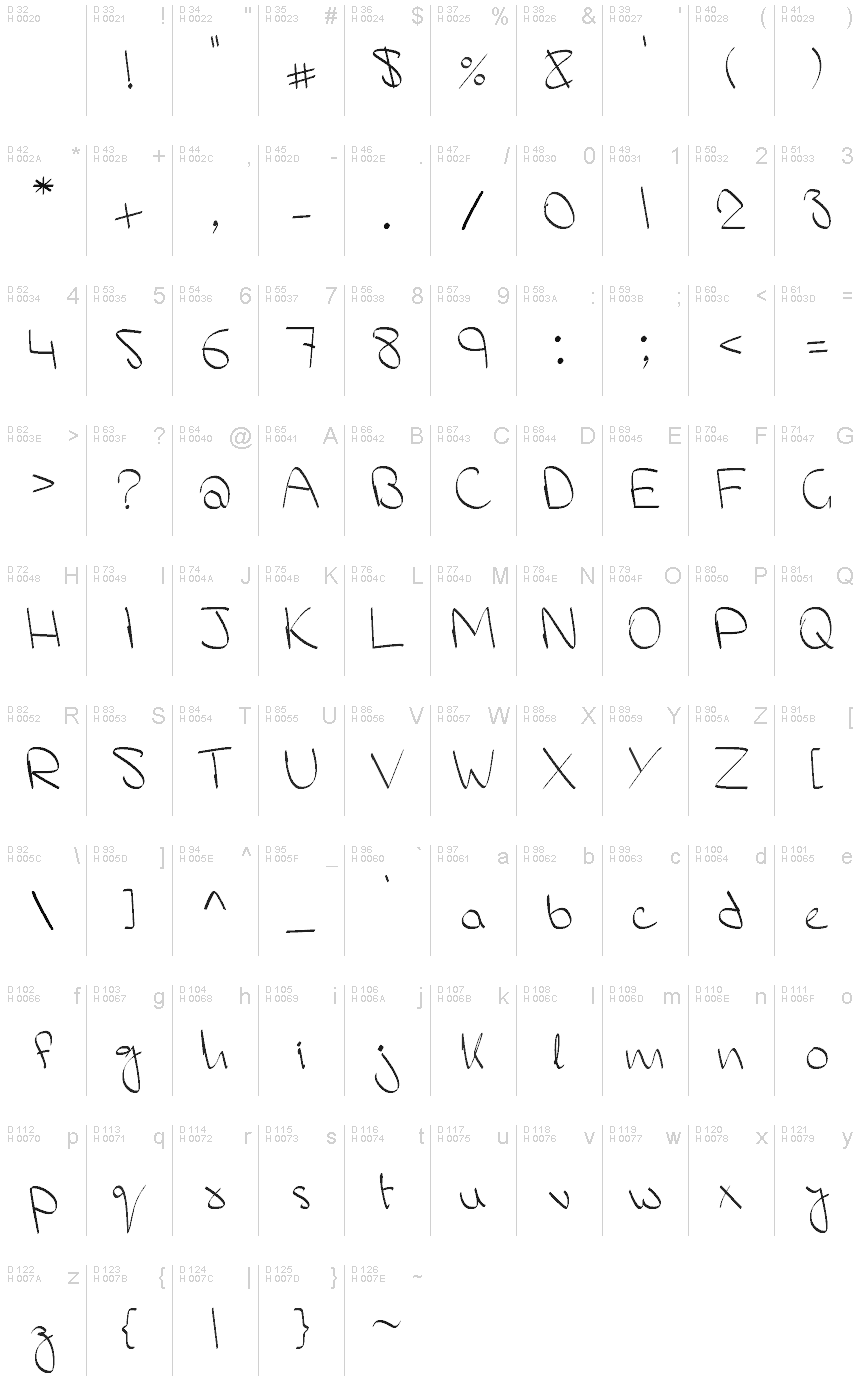
M's Hand
Ms Hand is a charming handwritten font that exudes a personal, authentic touch. With its light, flowing strokes and organic imperfections, this font captures the essence of handcrafted expression. The unique character shapes and subtle variations lend an endearing, handmade quality that can elevate a wide range of design applications, from stationery and packaging to editorial layouts and branding materials. Its versatile style effortlessly bridges the gap between formal and informal, making it a versatile choice for those seeking to infuse their designs with a touch of human warmth and individuality.
Designers seeking to inject a sense of personality and approachability into their work will find "Ms Hand" a captivating and compelling option. Its distinctive features and inherent charm make it a compelling choice for projects that aim to convey a personal, heartfelt narrative.